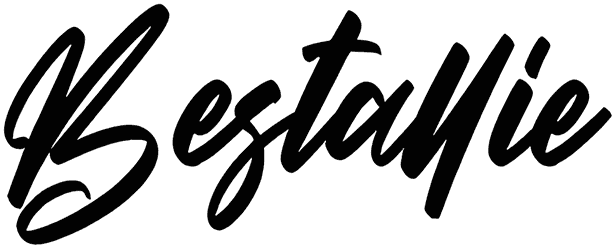
Bestallie Font
Graphic designers can bewilder their audience by using a mind-blowing 80s script font such as Bestallie in their logos, posters, magazines, web pages, flyers, and stationery. The characters of this handwritten font are crooked, rounded, and elongated, thus, it doesn’t have good readability, but it can convey a sense of personalization, momentum, whimsical, and professionalism.